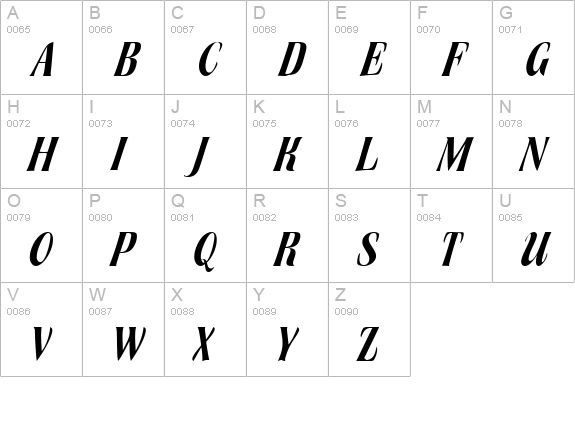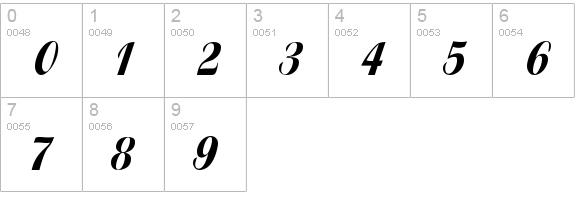
Introducing TR Brochure font, a versatile and elegant typeface perfect for a wide range of design projects. With its clean lines and modern aesthetic, TR Brochure exudes sophistication and professionalism. This font is ideal for creating eye-catching brochures, flyers, posters, and more. The best part? TR Brochure is available for free download at FontsMarket.com. This means you can easily access this high-quality font and use it in your projects without any cost. Don't miss out on the opportunity to enhance your designs with the timeless charm of TR Brochure font. Download it today and elevate your creative work to the next level.